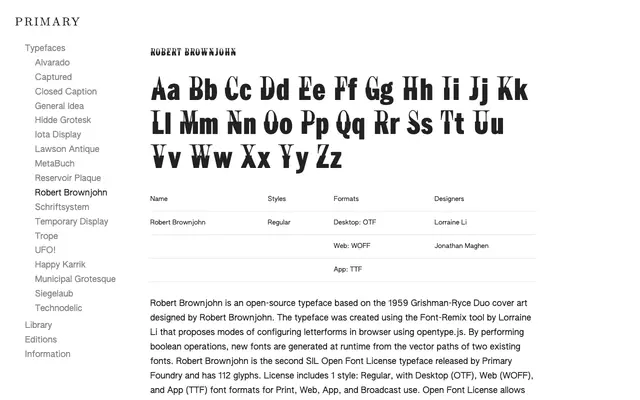
Robert Brownjohn
Primary Foundry · Lorraine Li, Jonathan Maghen
An open-source display face generated from the 1959 Grishman-Ryce Duo cover art designed by Robert Brownjohn, produced via boolean operations on existing font paths.
Lorraine Li used the Font-Remix tool to combine vector paths of two existing fonts through boolean operations in-browser, generating the letterforms at runtime rather than drawing them by hand. The result is a single-weight face of 112 glyphs released under the SIL Open Font License, Primary Foundry's second OFL release. Its source material, a piece of 1959 graphic design by Robert Brownjohn, gives the typeface a mid-century experimental quality.
Generated via boolean operations on vector paths of two existing fonts using the Font-Remix tool, producing a distinctive display face rooted in 1959 cover art; its experimental construction and singular weight place it firmly in display territory.